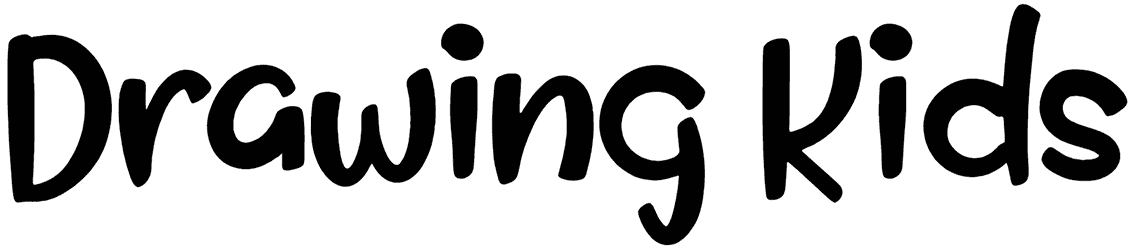
Drawing Kids Font
The Drawing Kids font belongs to cartoon fonts, and it is specific for kids. You can take advantage of this style of font for children’s training products like books and games.
We should not limit the font to projects concerning children. Because its specific look will be a trend among teenagers, even adults. The sense of adventure behind the font can be used for birthday cards, T-shirts, holiday flyers, movies, and magazine titles.